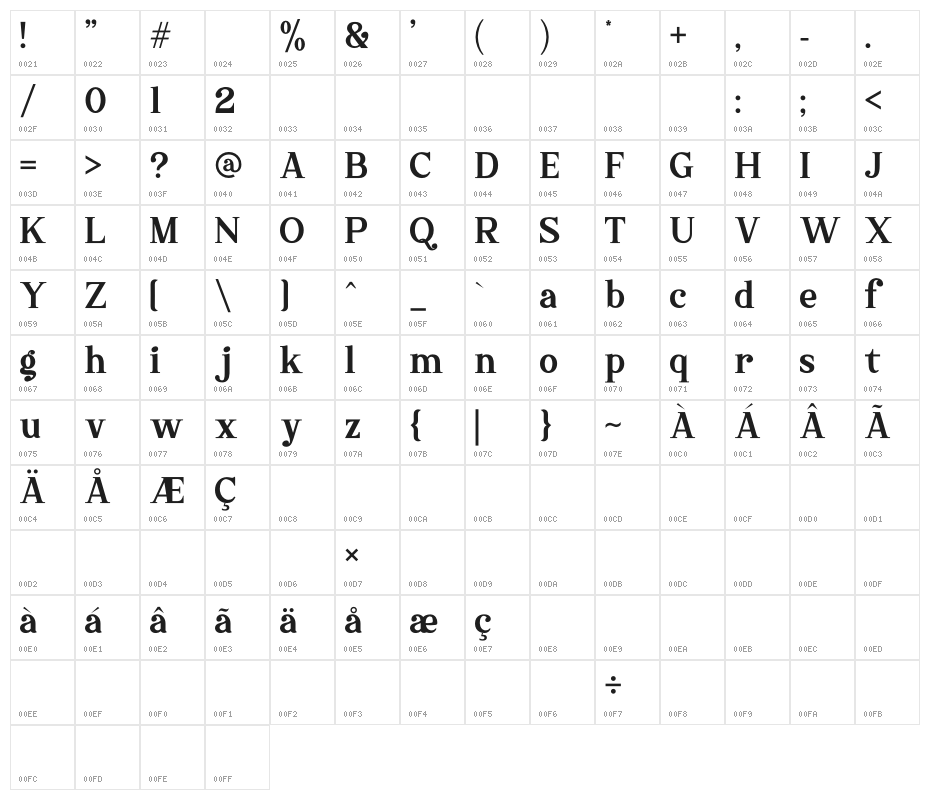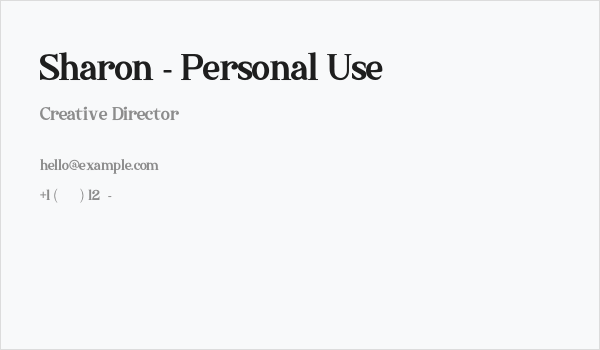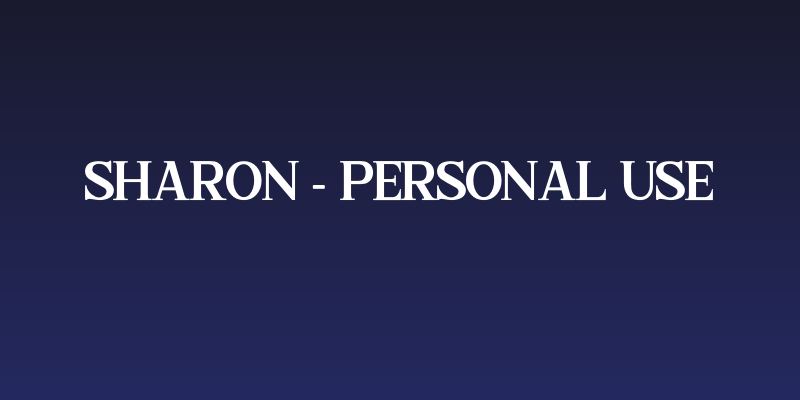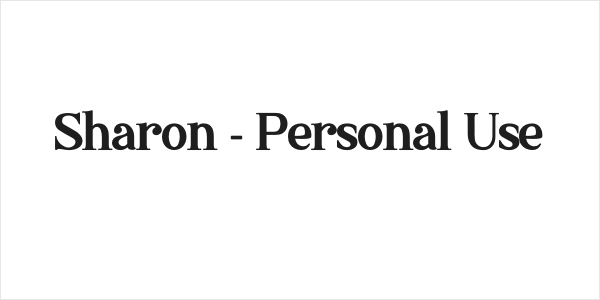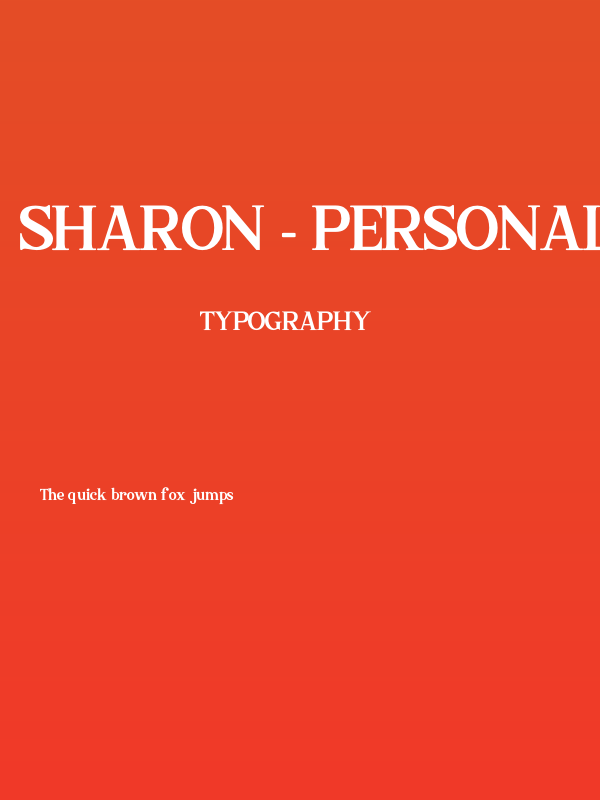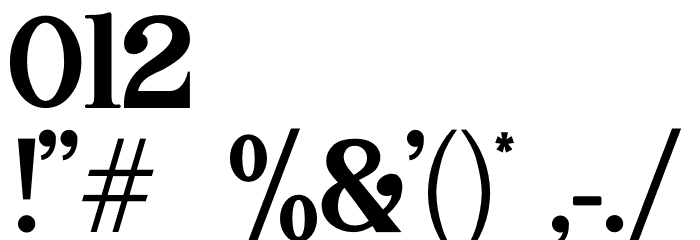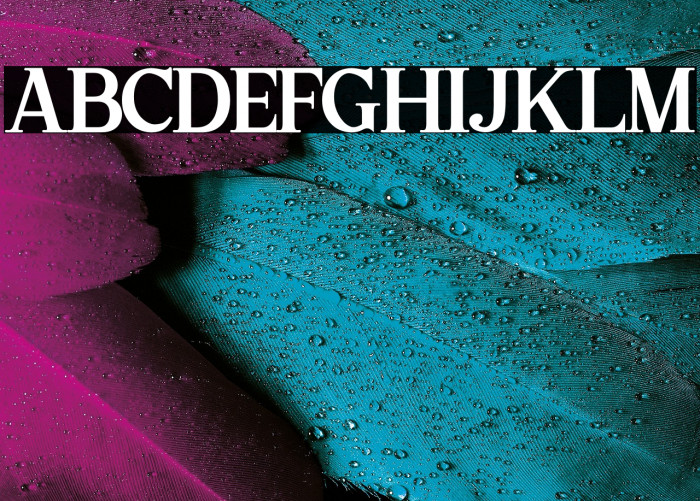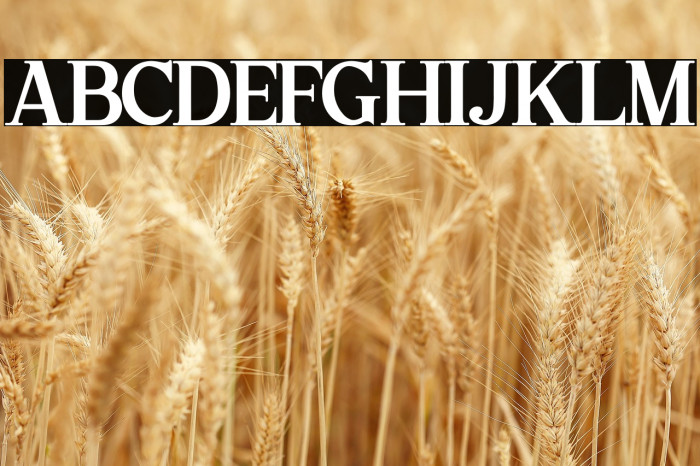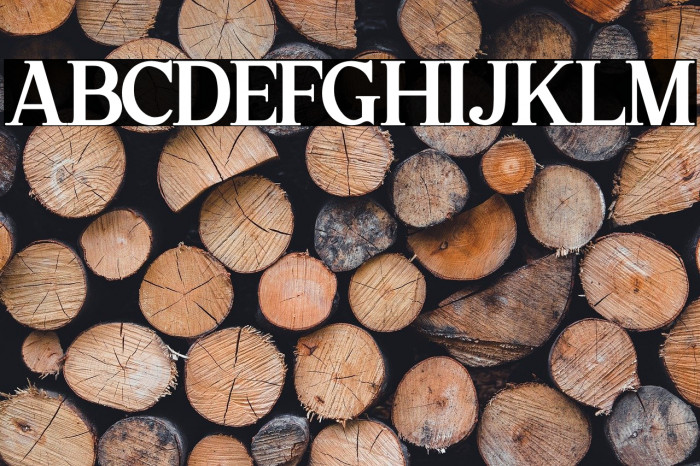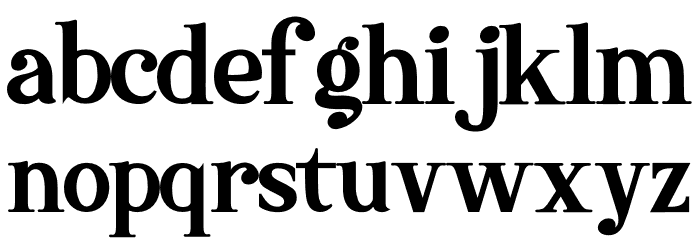
Sharon - Personal Use Font
Sharon - Personal Use Description
This font features a classic serif design with pronounced, elegant serifs that give it a traditional and sophisticated appearance. The uppercase letters are bold and commanding, while the lowercase letters maintain a balanced and harmonious flow. The numerals are distinct and clear, making them easily readable. Special characters are well-integrated, maintaining the overall aesthetic of the font. The strokes are consistent, with a medium contrast that adds to the readability and visual appeal. This font is versatile, suitable for both formal and creative applications.